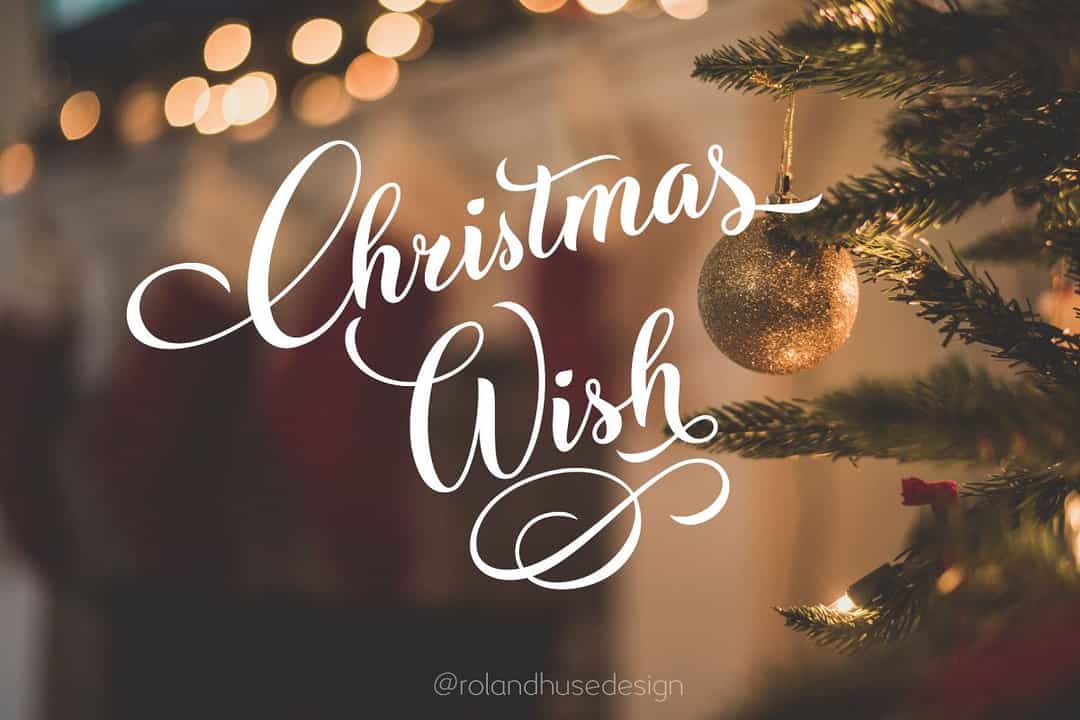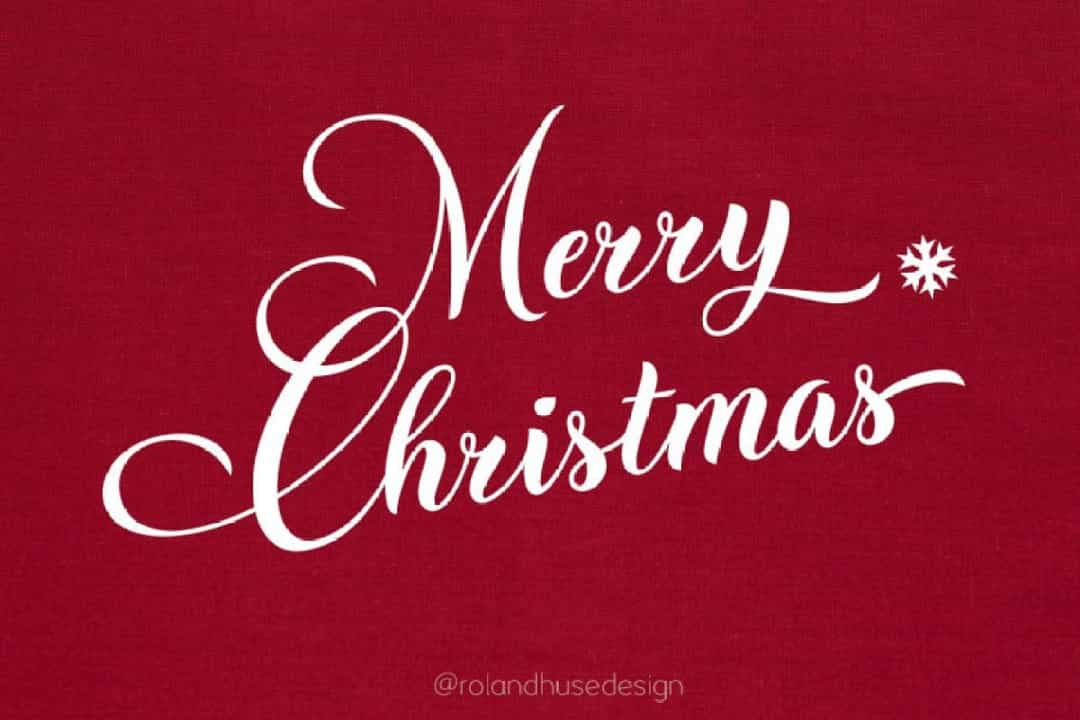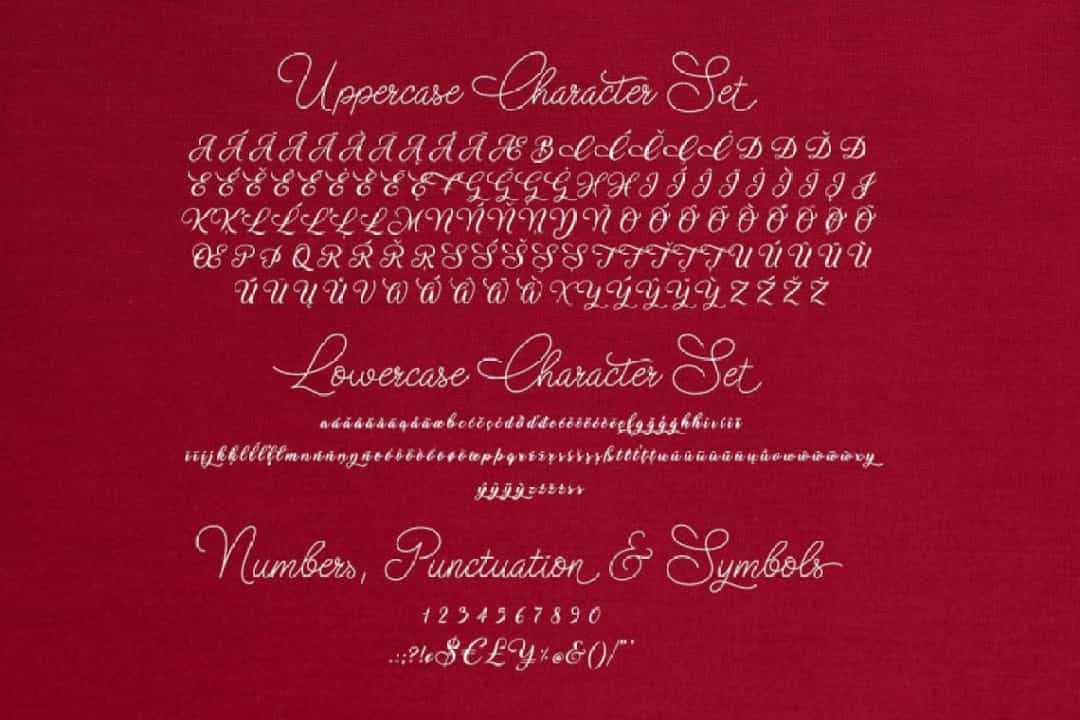
Discover Christmas Wish Font, part of the Calligraphy Christmas collection—a versatile and unique font perfect for adding a personal touch to your projects. Download it for free and enjoy crafting designs with style, from invitations to social media posts. This font is available exclusively for personal use, giving you the freedom to create without limits. Unlock your creativity with Christmas Wish Font today!
Christmas Wish is an elegant cursive brush font that has a strong calligraphy feel. It comes in two weights: the first two types of monolines are a thin monoline and a brush calligraphic version. It comes with stunning alternates and swashes that can brighten up any of your holiday creations!